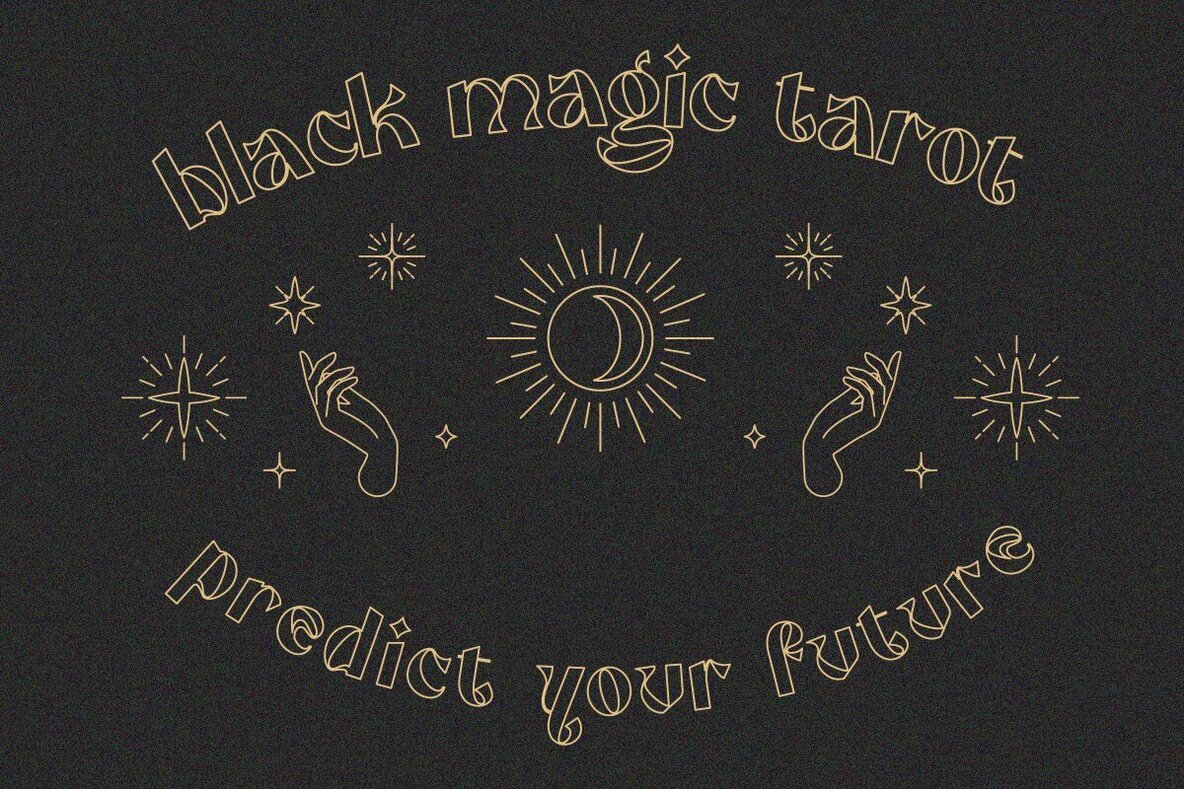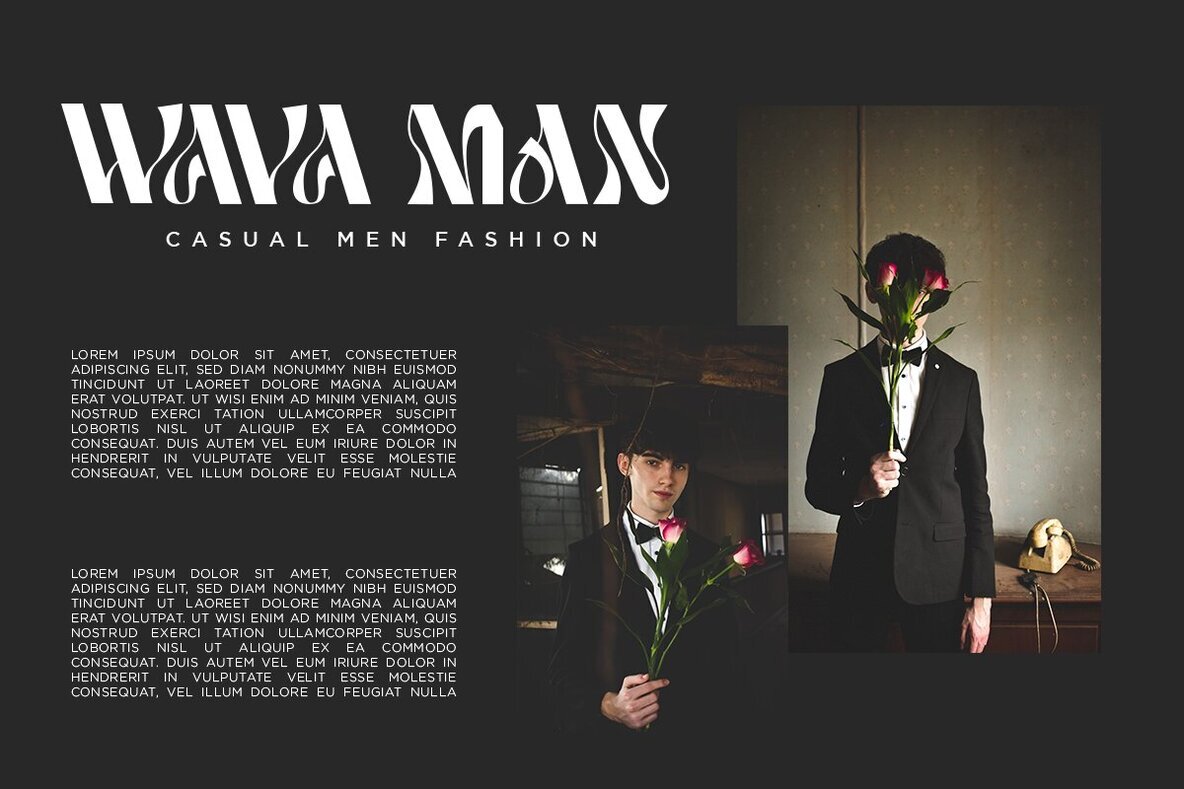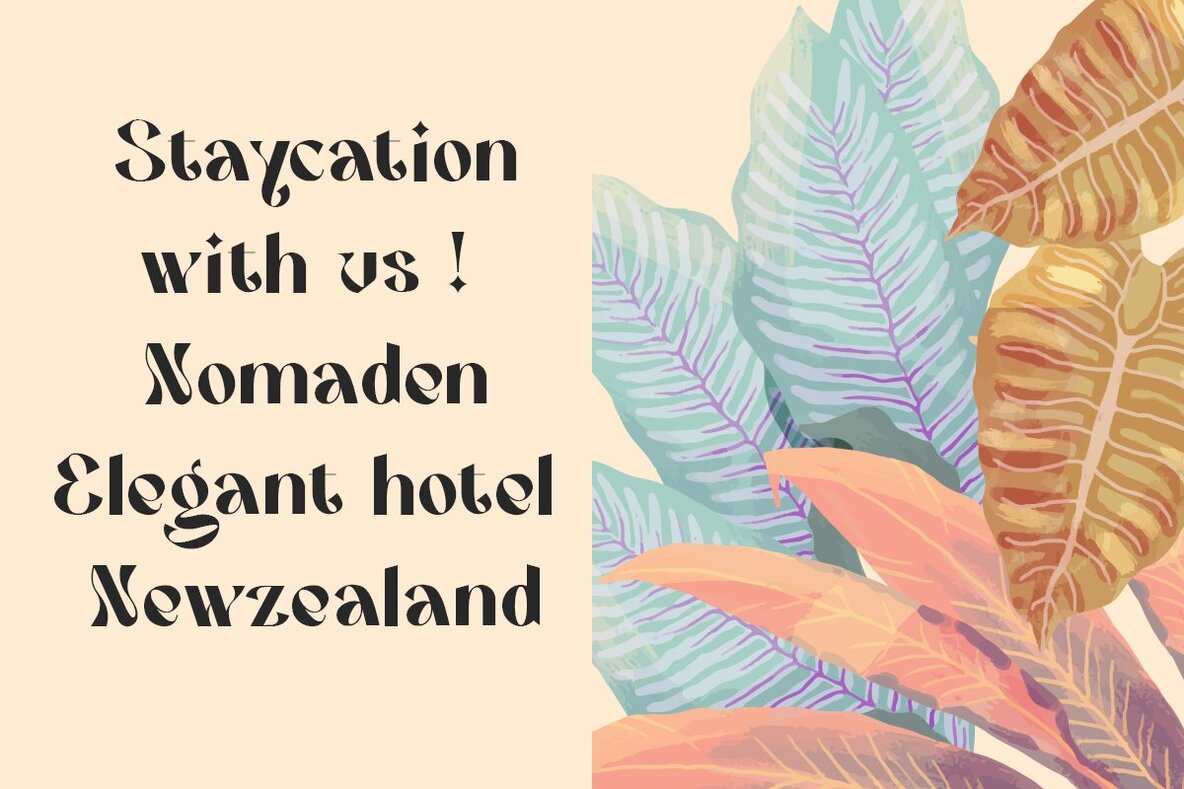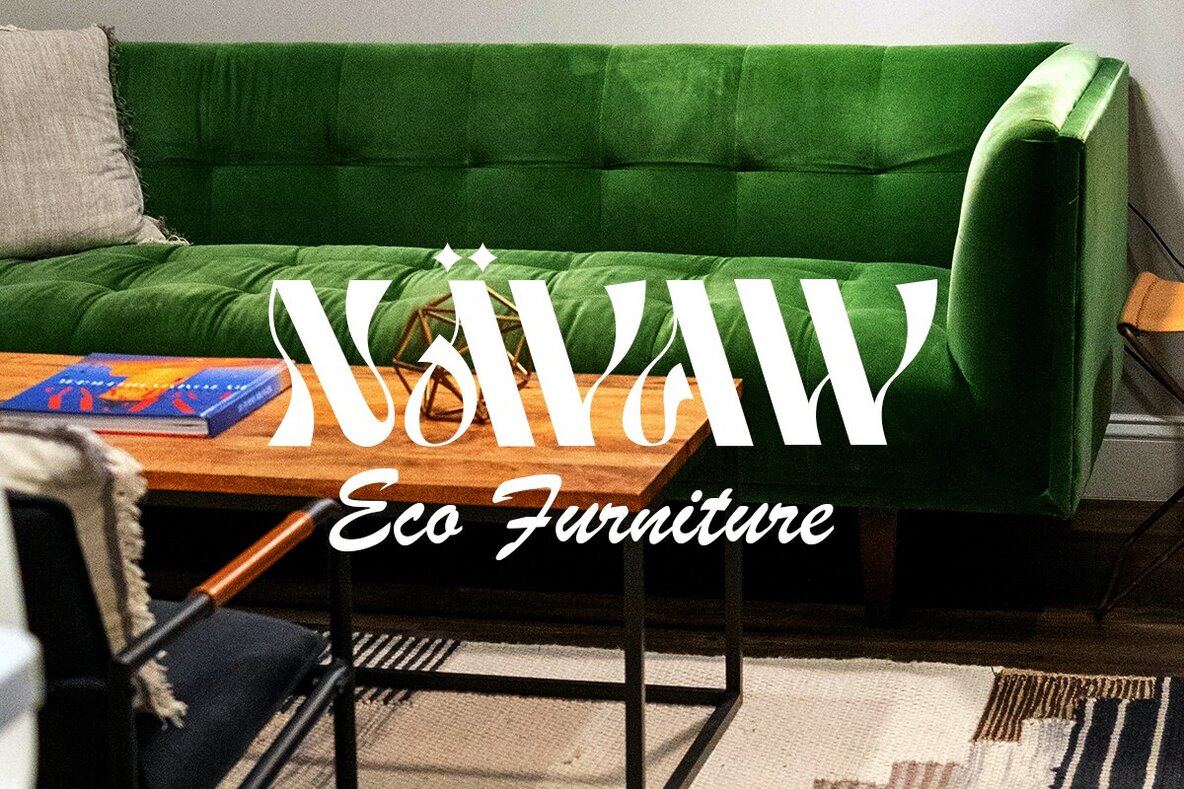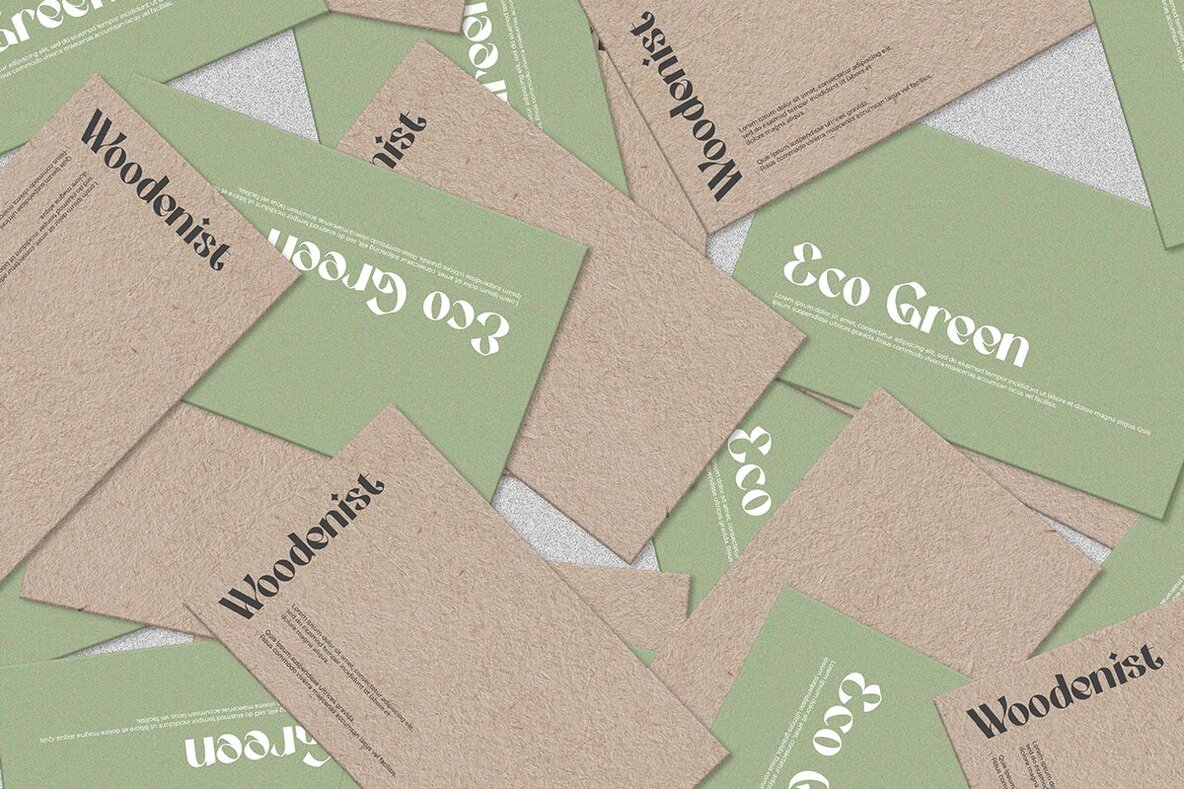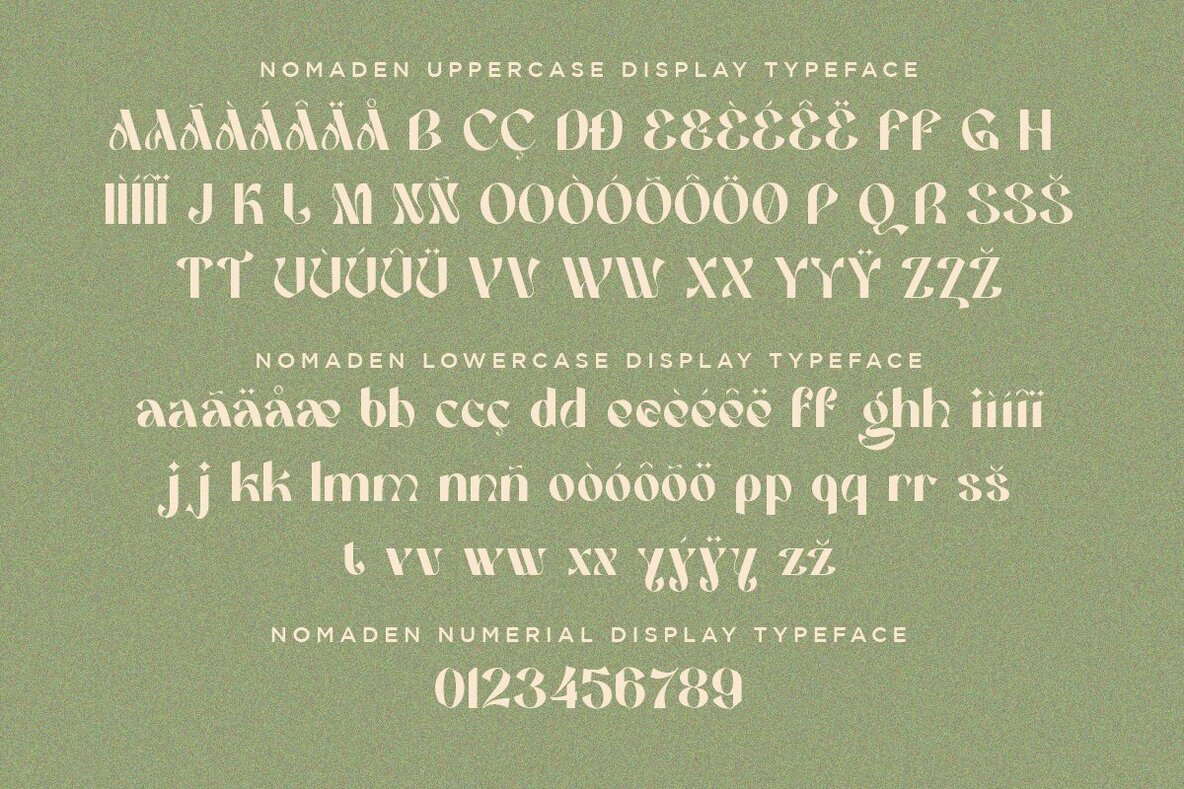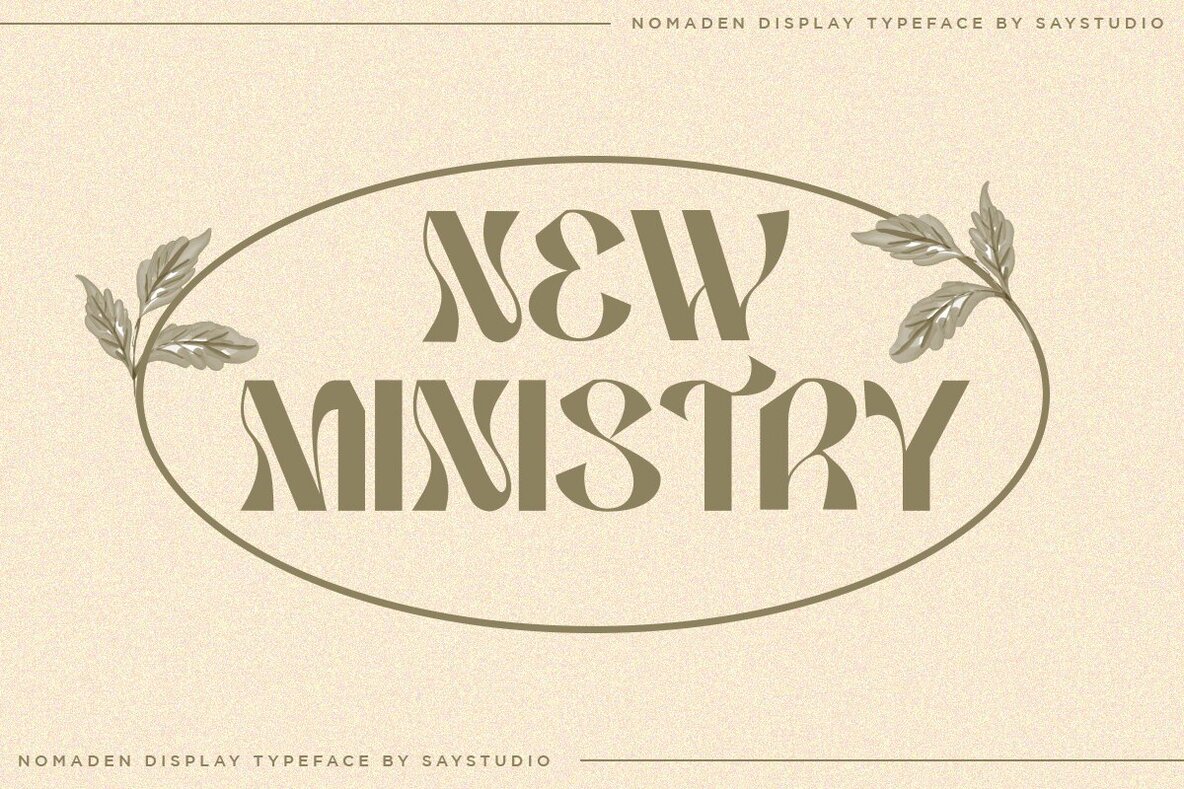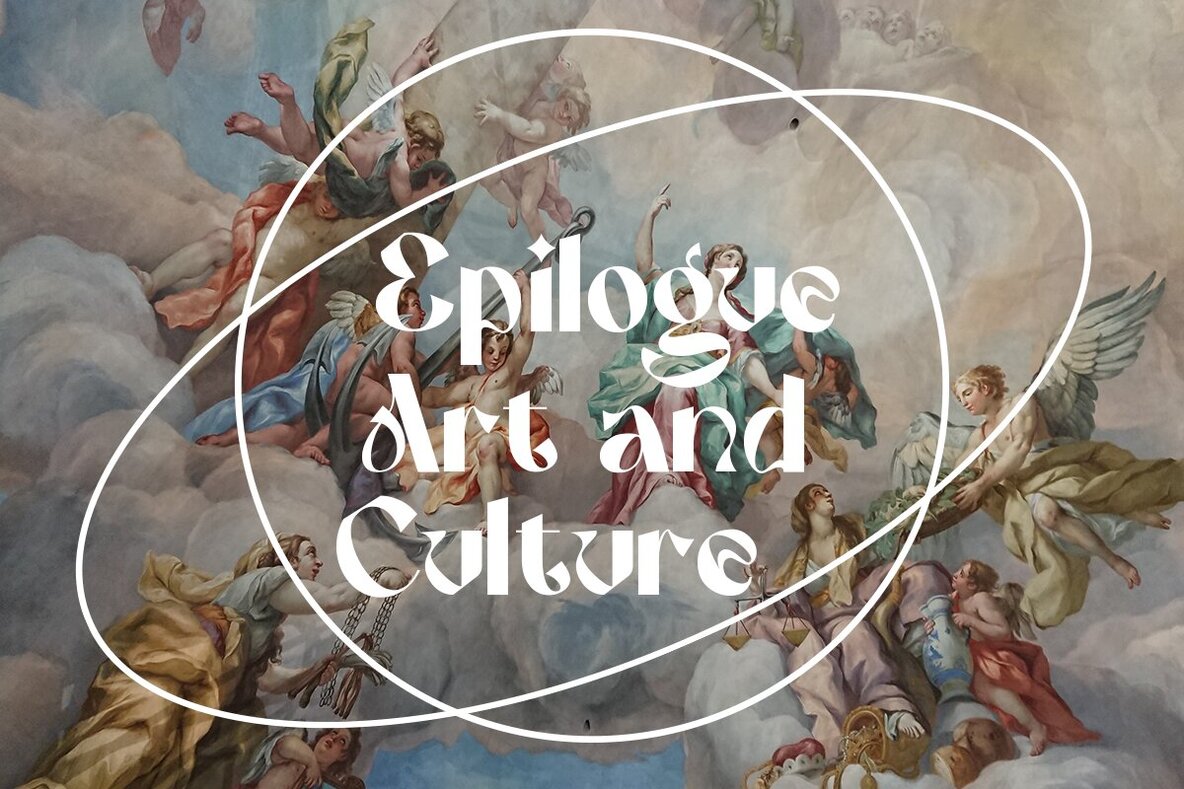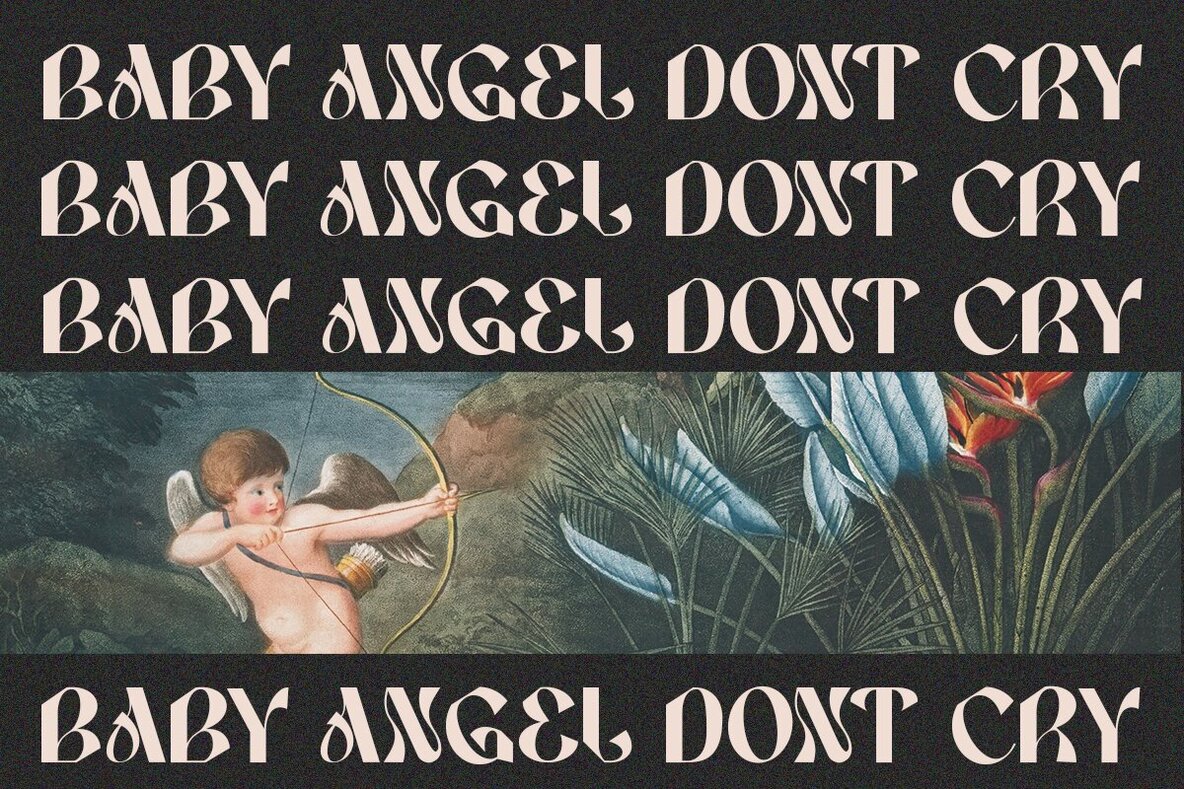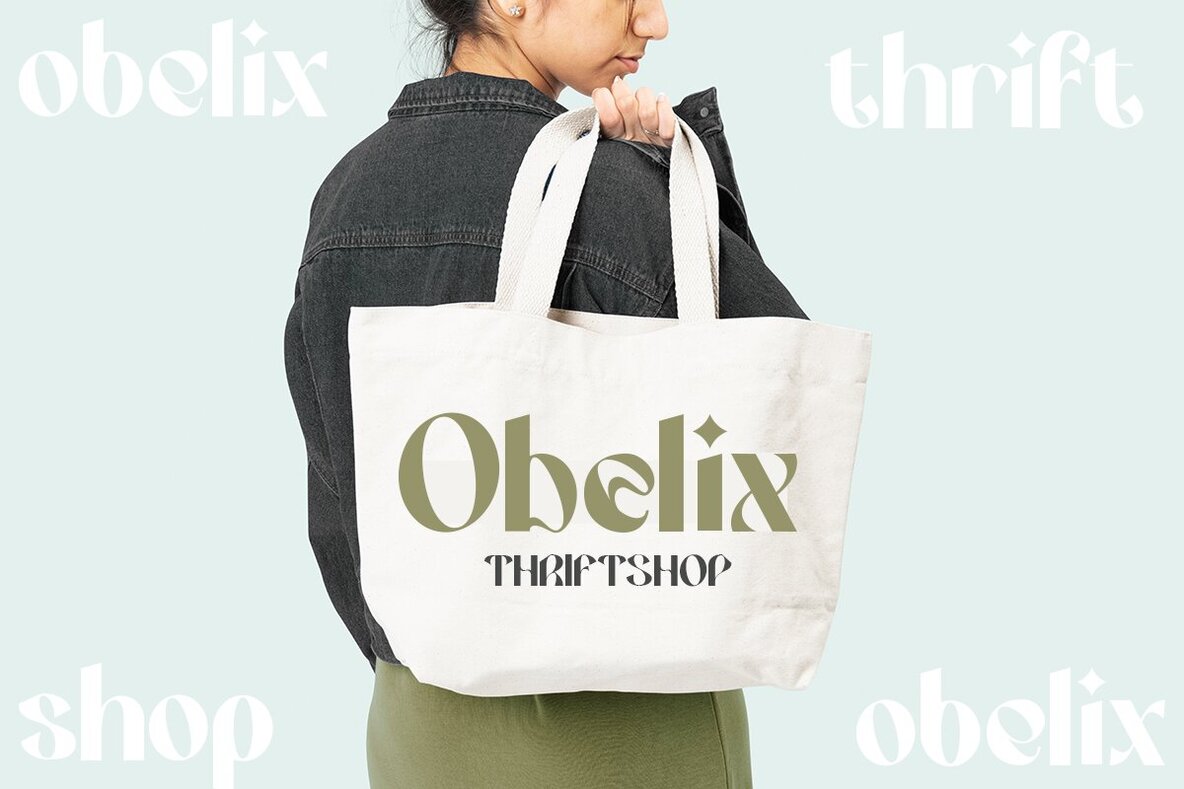
Nomaden Font
Nomaden Regular
Nomaden is a dynamic display typeface designed to infuse a distinctive character into your logos, brand identities, and contemporary typographic projects. This typeface seamlessly merges vintage charm with modern sensibilities, balancing the line between retro elegance and current appeal. With its intriguing blend of serif and sans-serif styles, Nomaden provides both decorative flair and readability. This hand-crafted font delivers a vibrant aesthetic suitable for various creative applications. It's ideal for crafting modern logos, curating Instagram quotes, designing stylish portfolio websites, developing editorial layouts, personal branding projects, wedding stationery, and innovative product packaging.Nomaden: A Versatile Display Typeface